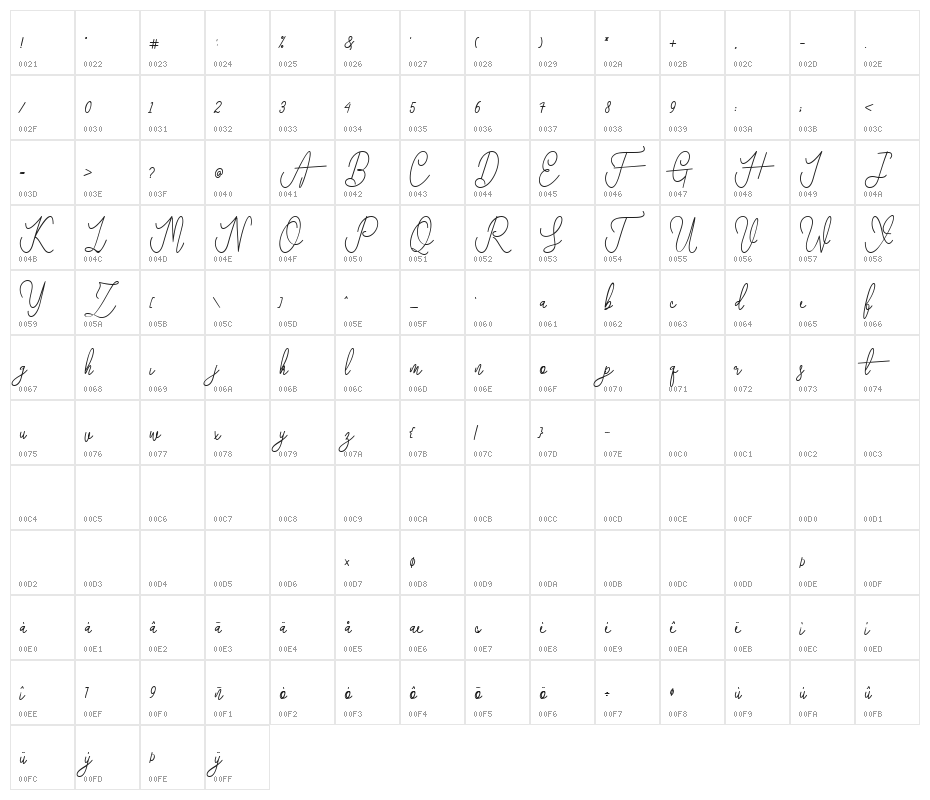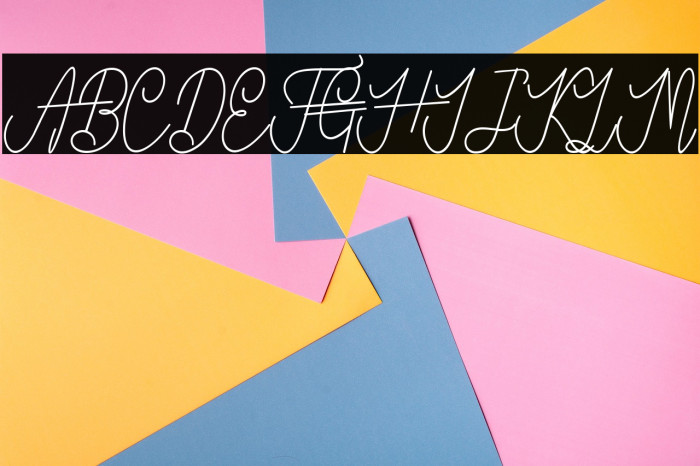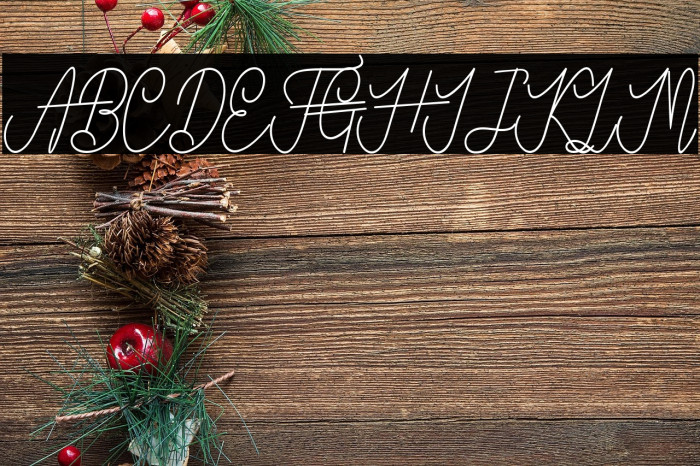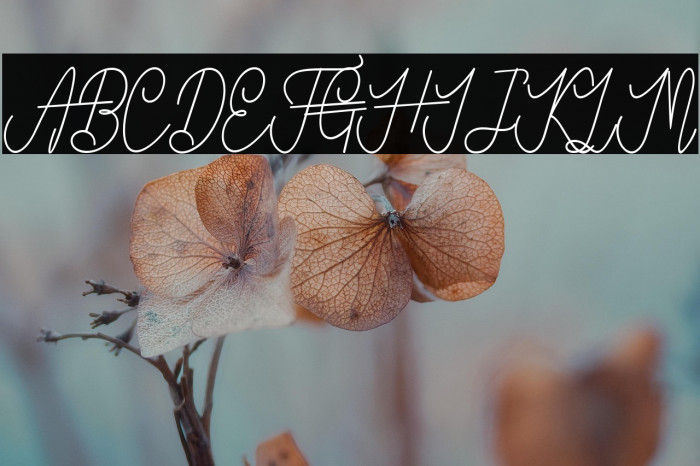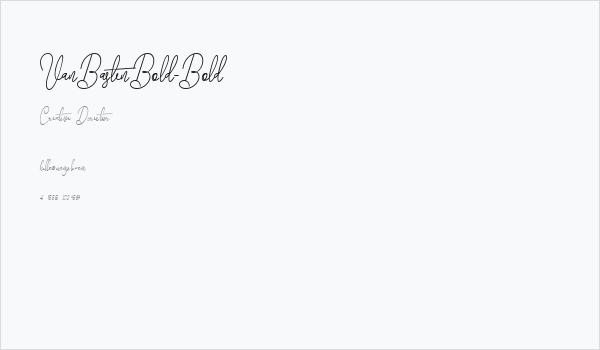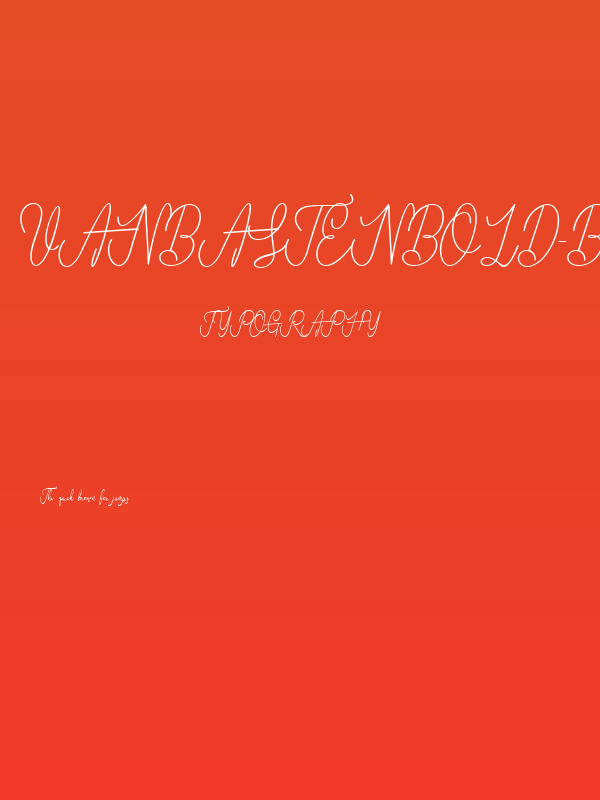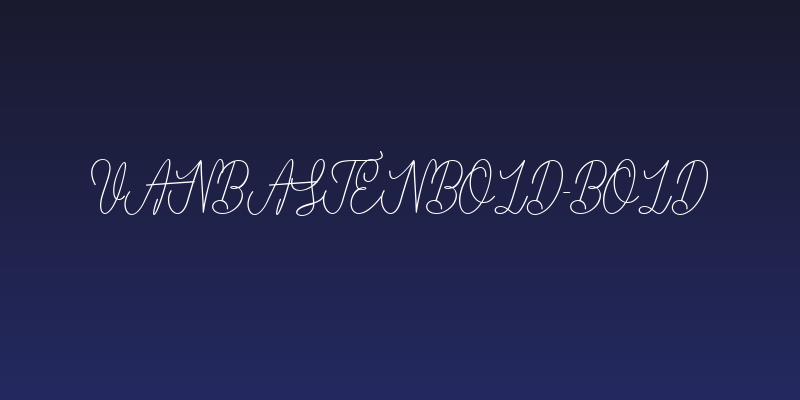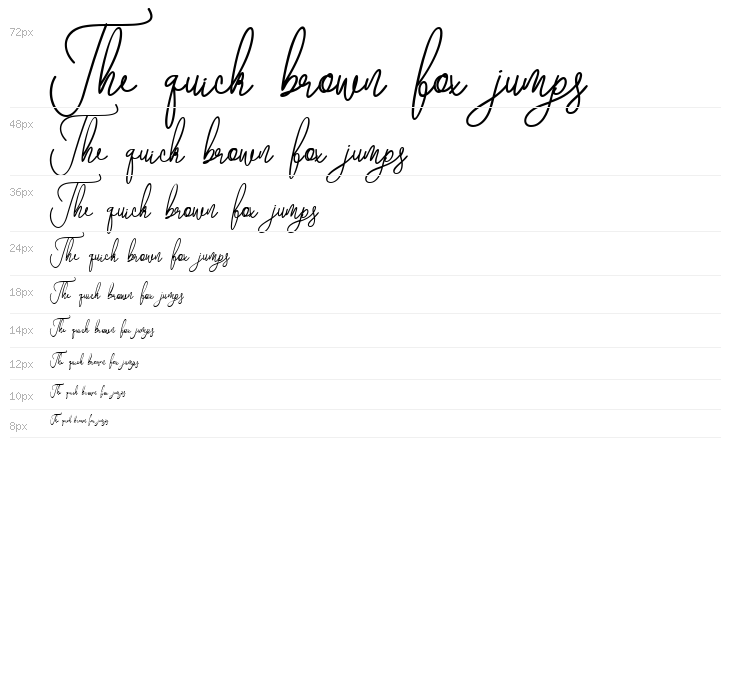
VanBastenBold-Bold Font
VanBastenBold-Bold Description
This font features an elegant, flowing script style that combines both uppercase and lowercase letters with a sense of fluidity and grace. The uppercase letters are characterized by their tall, looping ascenders and descenders, giving them a sophisticated and airy appearance. The lowercase letters maintain a consistent stroke width, enhancing readability while preserving the font's decorative nature. Numbers and special characters are integrated seamlessly, maintaining the overall aesthetic. This font is perfect for projects that require a touch of elegance and sophistication, such as wedding invitations, formal event branding, or high-end product packaging.